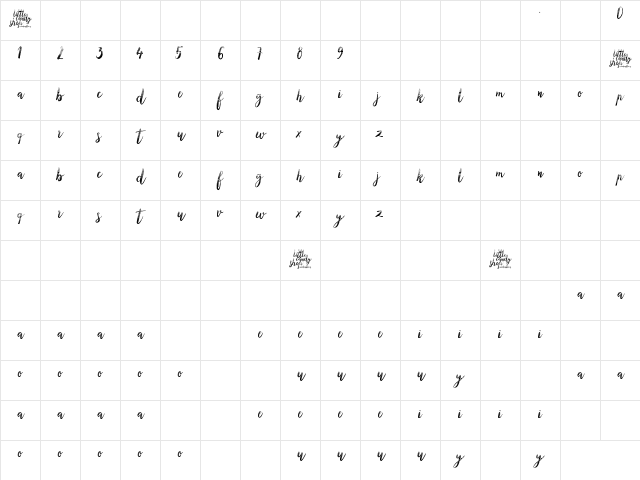
Little Candy Shop Regular
Designer: Woodcutter Manero
Design Context for Little Candy Shop
Little Candy Shop is a composed and adaptable typeface that performs quietly and consistently across a wide range of design contexts.